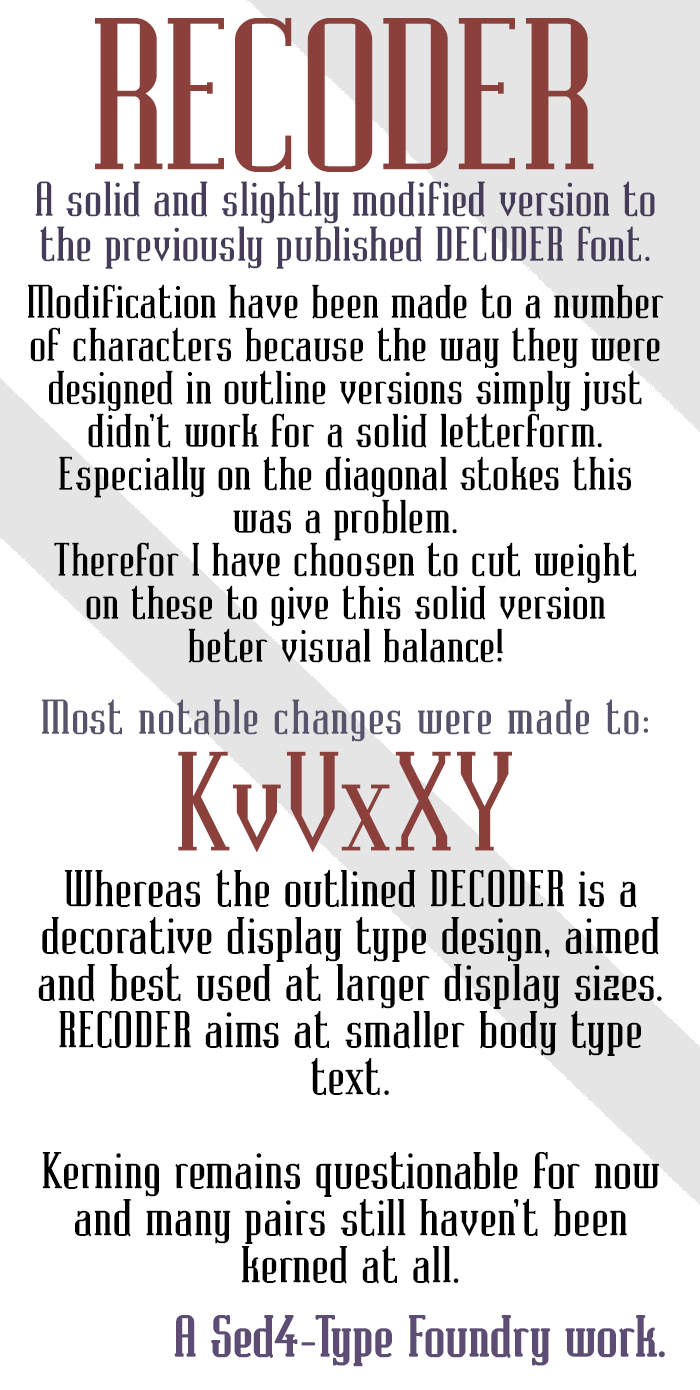
• Mostly a filled version to DECODER but with some modifications, especially on the diagonals. This because the way they were designed in the outlined DECODER font made them look far too thick in a solid version. So on these I cut weight to get a better visual balance. I kerned some pairs but a lot still needs to be looked into, which I will soon!